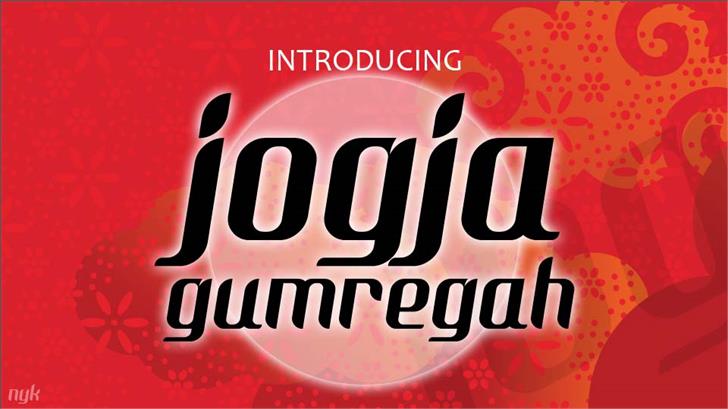
Nyk Jogja Gumregah Font
Introducing Nyk Jogja Gumregah Font! Nyk Jogja Gumregah designed by Aprinugroho. Font ini terinspirasi dari logo jogja istimewa. Every single letters have been carefully crafted to make your text looks beautiful. With modern unique style this font will perfect for many different project ex: design t-shirts, book cover, quotes, blog header, poster, branding, logo, invitations, cards, cases design, fashion, apparel, letter, invitation, stationery.